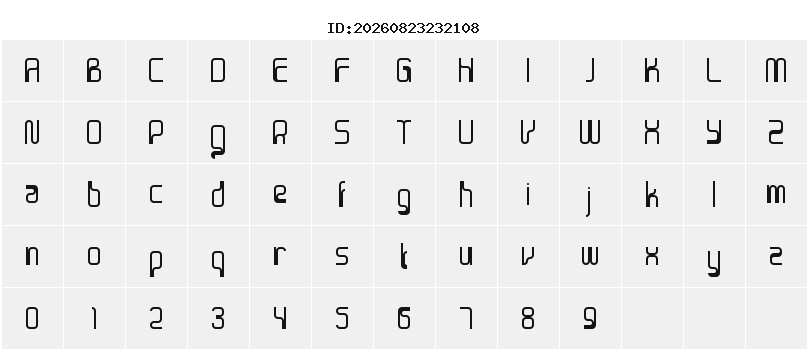
• Font Name: Sanjaya Epoch
• Full Font Name: Sanjaya Epoch Regular
• Designer: Adien Gunarta
• Description: ‚ÄúSanjaya Epoch‚Äù was built with FontStruct
About Sanjaya Epoch.ttf
Sanjaya Epoch.ttf is a modern, elegant sans-serif font designed for ultimate readability and visual harmony. Perfect for branding, headlines, web design, and print materials.